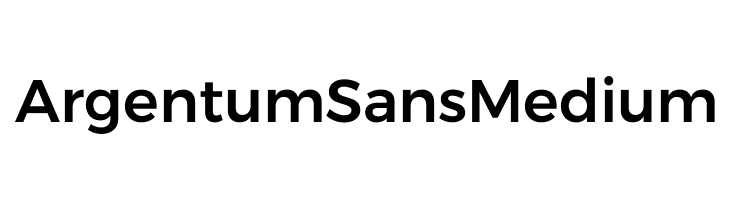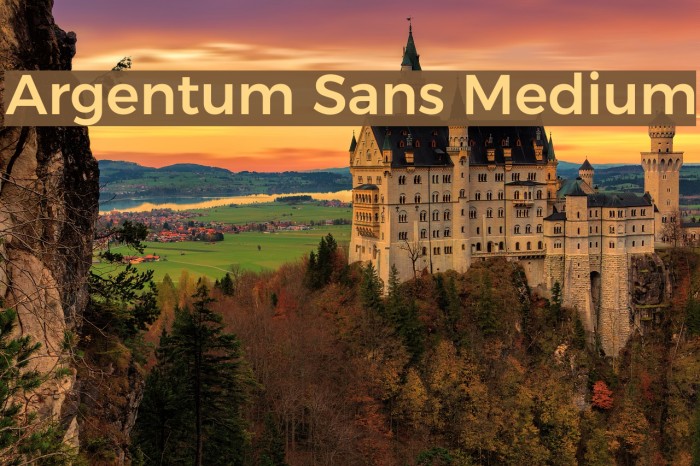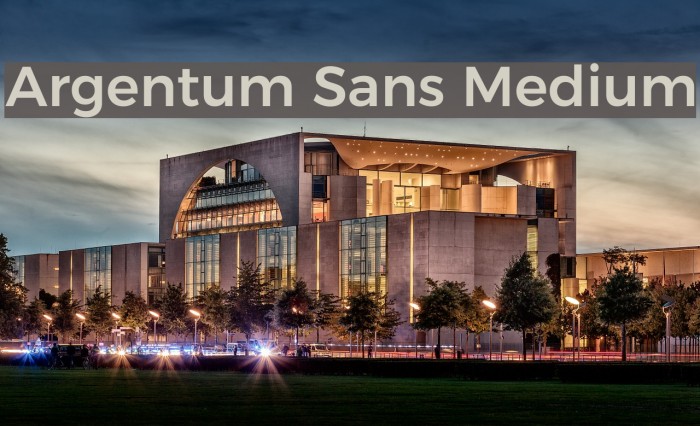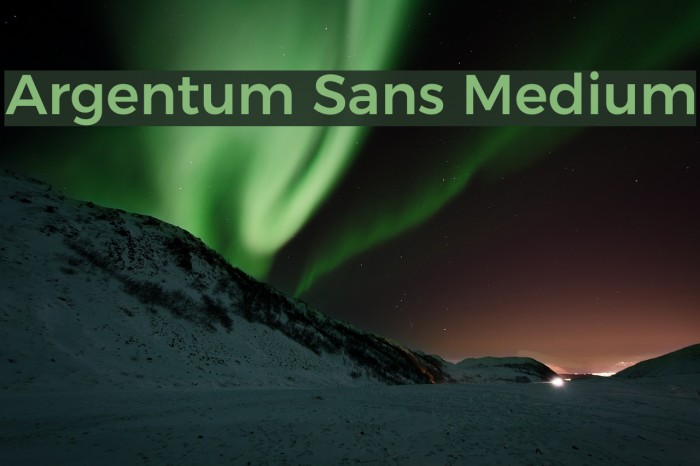
Argentum Sans Medium Font
This font features a clean and modern sans-serif design, characterized by its geometric shapes and balanced proportions. The uppercase letters are bold and assertive, while the lowercase letters maintain a consistent and harmonious appearance. The numerals are clear and easily distinguishable, making them suitable for various applications. The special characters are well-integrated, adding versatility to the font's usage. Overall, this font exudes a contemporary and professional aesthetic, making it ideal for digital and print media.
A modern, geometric sans-serif font with balanced proportions and clear numerals.
• Proposed Projects: Ideal for branding, web design, advertising, and editorial projects.
• Category: Sans-Serif
• Bold: Yes
• Italic: No
• Weight: Regular
• Width: Normal
• Character Spacing: Normal
• Contrast: Low
• Overall Style: Modern
• Use Case: Headlines, Body text, Logos